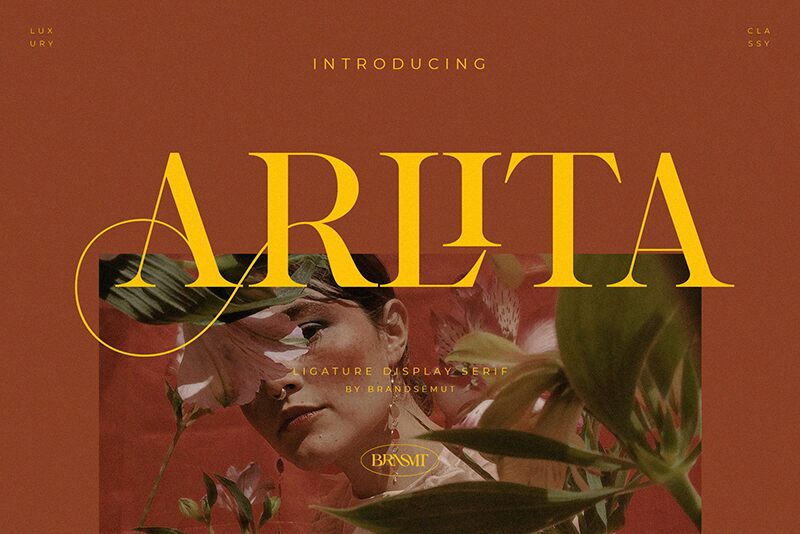
Arlita
Introducing Arlita, a stunning ligature serif font designed by Brandsemut. Perfect for adding elegance to wedding invitations, book covers, logos and other creative projects. With its unique charm and intricate details, Arlita will make any design stand out!